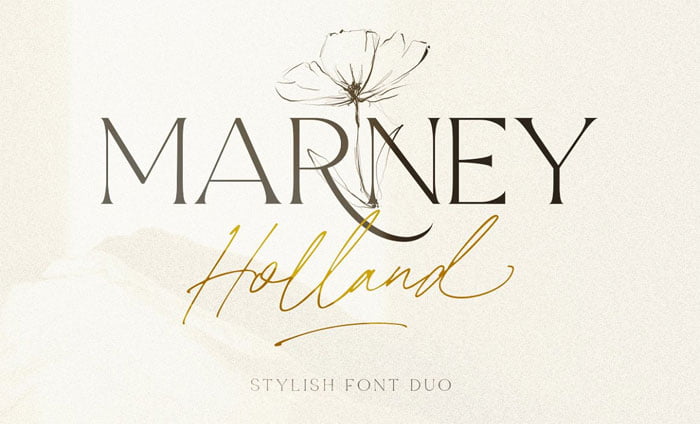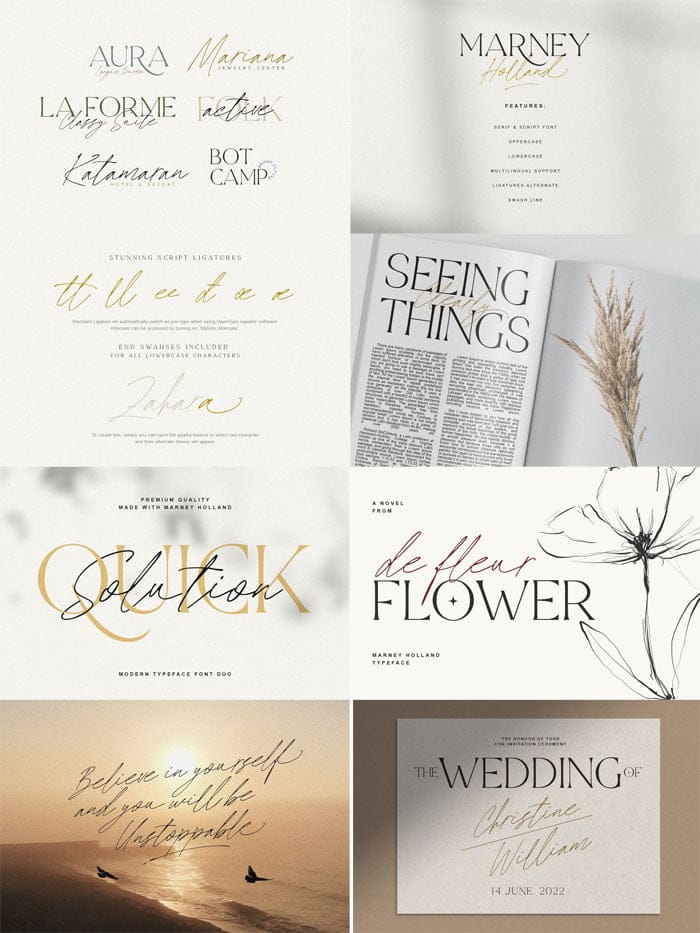
Marney Holland Stylish Font Duo
Marney Holland is a fonts duo contains stylish signature script and elegant serif. You can use this font for any purpose, such as branding, logo, or even wedding invitations. You don’t have to search for font match, you can get it both in the package. This font is timeless and versatile. Marney Holland also support multilingual! You Can Also Download Sophistica 10 Fonts & Ext.